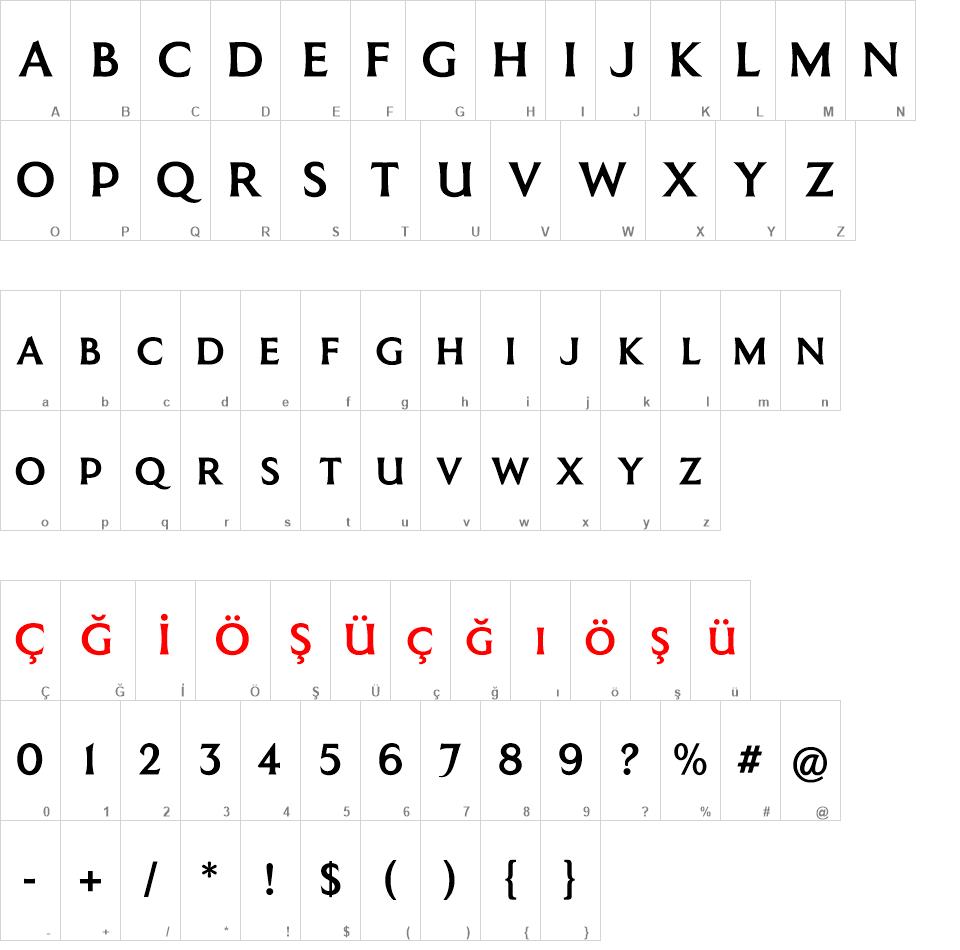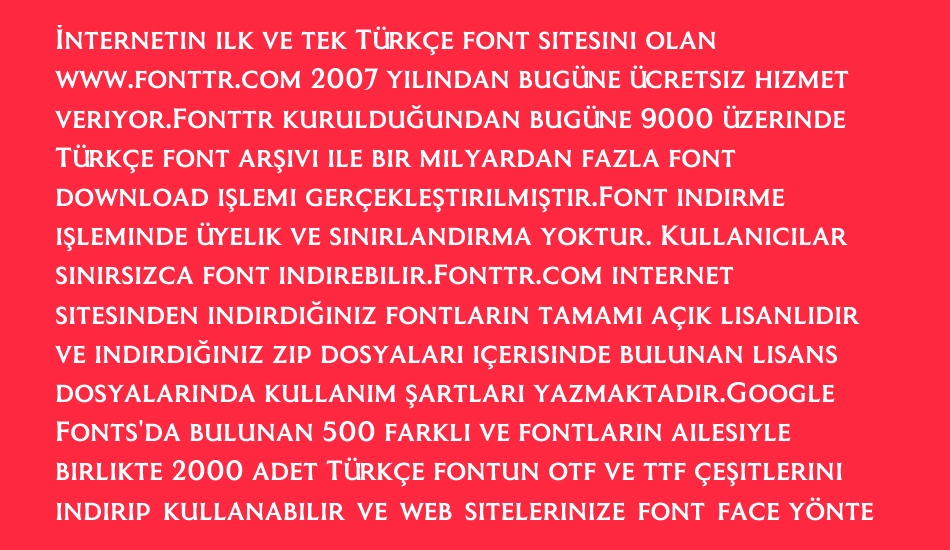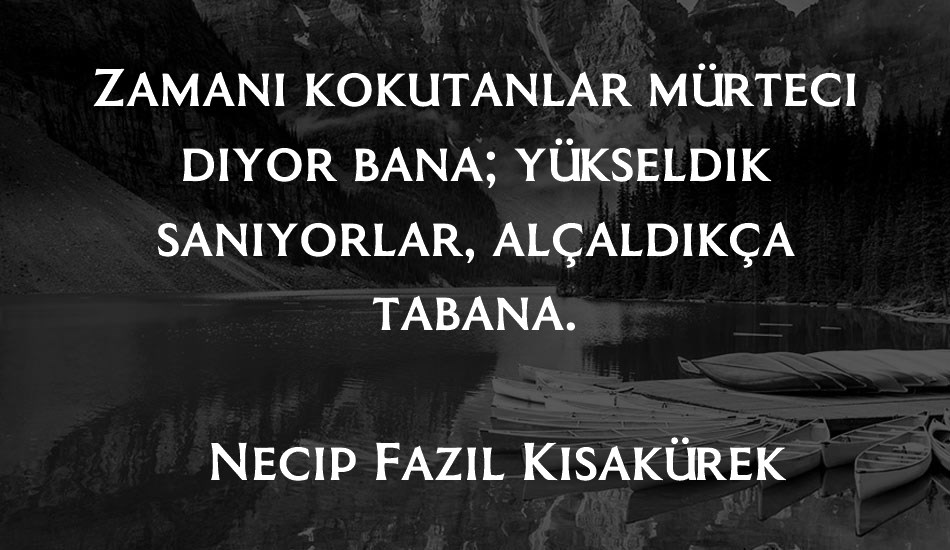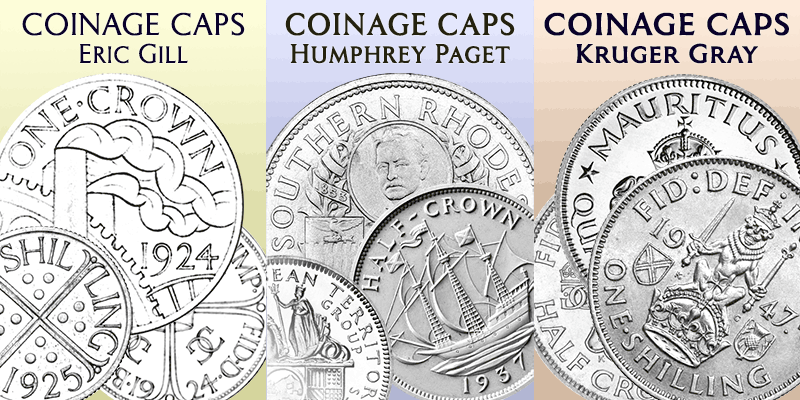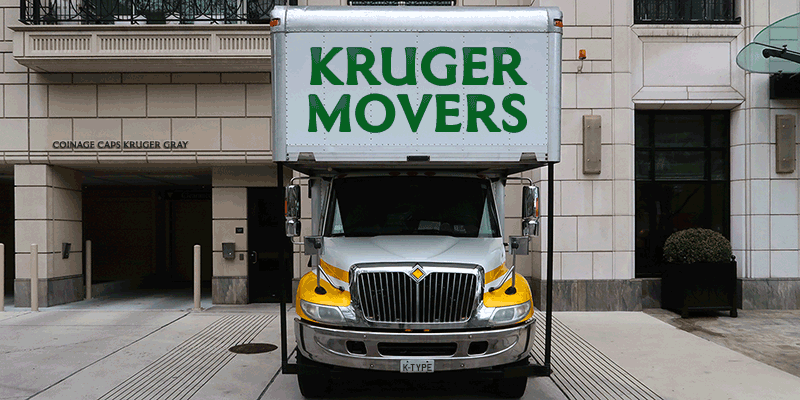
Coinage Caps Kruger Gray font
Coinage Caps Kruger Gray
Coinage Caps is a trilogy of small caps fonts based on the Roman lettering used for the designs of British coinage.